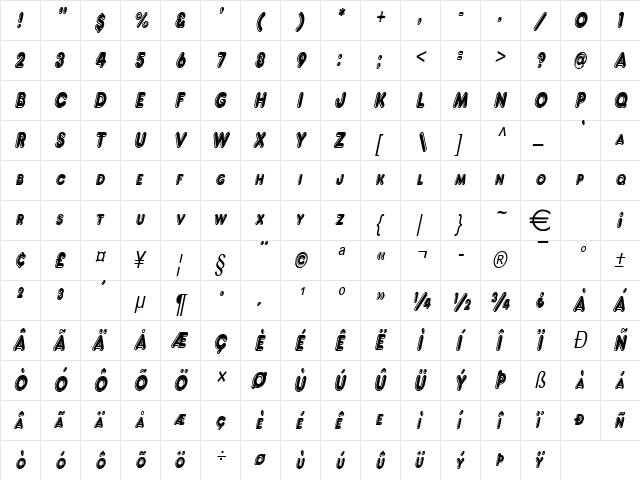
FrancisHighLightedCondensed Italic Font Preview
Design Context for FrancisHighLightedCondensed Typeface
FrancisHighLightedCondensed is a composed and adaptable typeface that performs quietly and consistently across a wide range of design contexts. The dynamic lean of this cut emphasises speed and emphasis in any layout. Its slender proportions lend an understated elegance to any composition. Its narrow stance lets it pack a punch even in space-constrained designs.